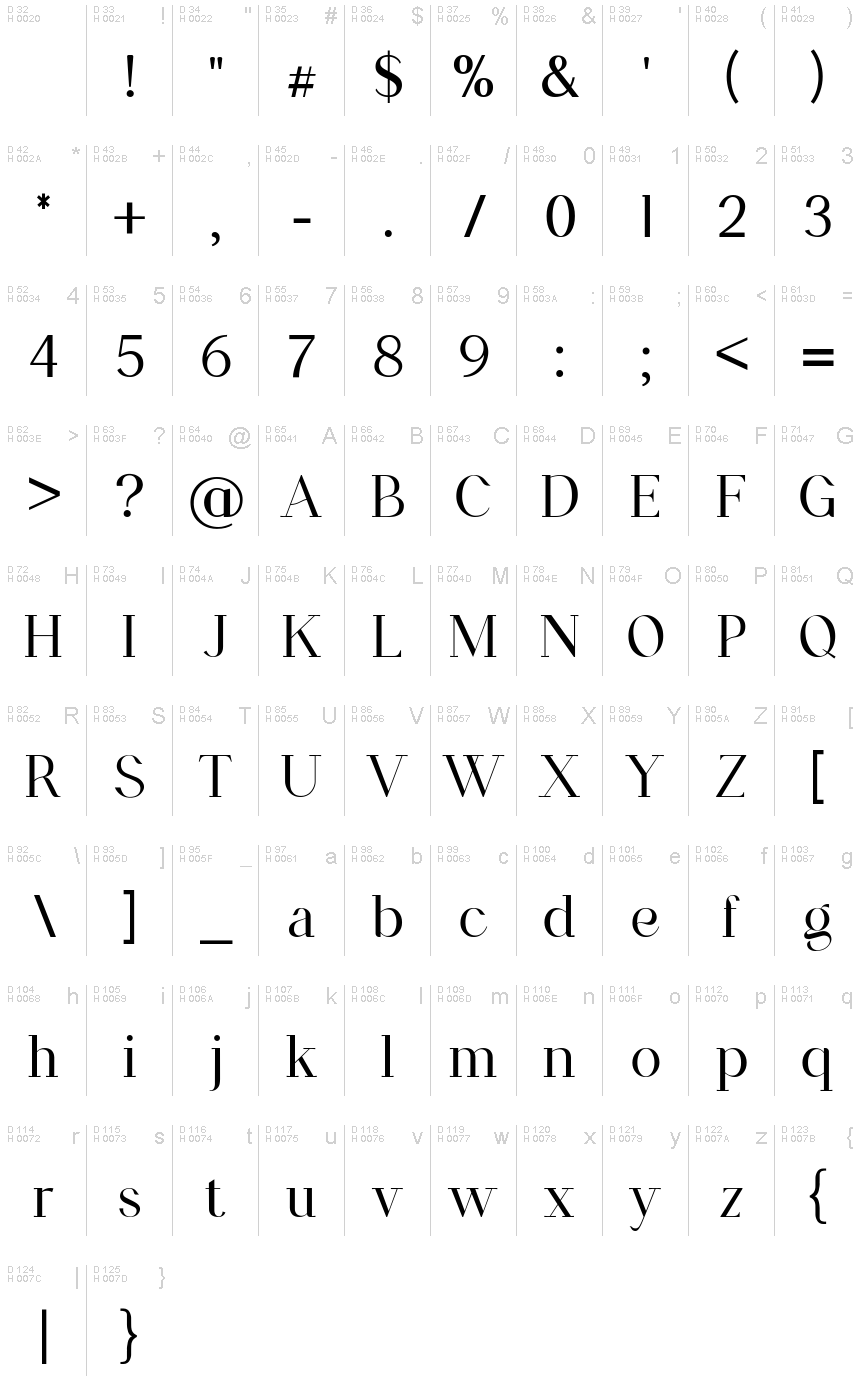
Regardant
The Regardant serif font exudes a timeless elegance and sophisticated charm. Crafted by the skilled designers at UI Creative, this typeface commands attention with its refined, yet distinctive letterforms. The serifs, gracefully adorning each character, lend an air of timelessness, while the subtle contrast between thick and thin strokes adds depth and visual interest. Regardant's refined aesthetic seamlessly blends traditional influences with a modern sensibility, making it an exemplary choice for projects seeking a touch of refined sophistication.
Regardant's versatility shines through, making it a versatile selection for a wide array of design applications. From high-end editorial spreads and luxury brand identities to elegant invitations and captivating book covers, this font's elegant charm effortlessly adapts to diverse design contexts. Its legibility and refined presence also make Regardant an excellent choice for large-scale headers, titles, and impactful typographic compositions.